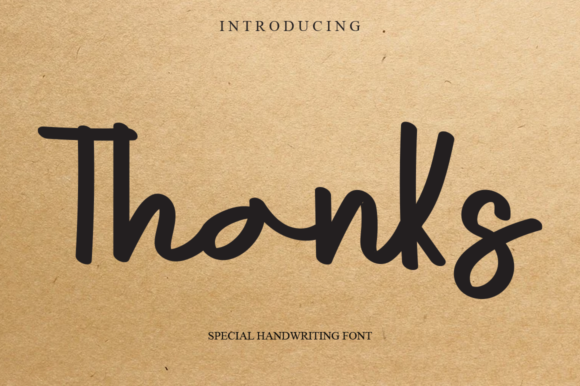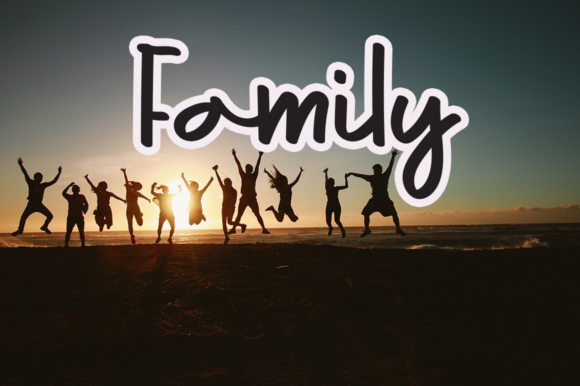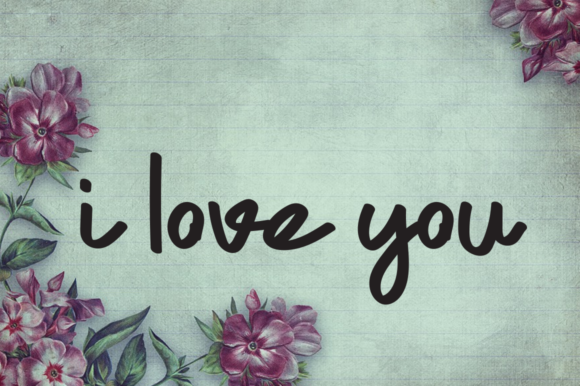
About Thanks Font
Thanks is a delightful handwritten font that captures a dainty and fun vibe. With its nostalgic feel and elegant style, this typeface adds a touch of charm and whimsy to any design project.
The soft and playful curves of Thanks make it an excellent choice for a variety of creative endeavors. Whether you’re designing love books, creating graphics for romantic movies, or working on women’s magazines, this font will bring a sense of warmth and personality to your work.
Thanks evokes a feeling of gratitude and appreciation, making it a perfect fit for projects that celebrate love, joy, and positivity. Its delicate strokes and gentle letterforms create a sense of elegance and sophistication, while still maintaining a playful and inviting atmosphere.
The versatility of Thanks allows it to be used in a wide range of applications. It can be used for titles, headlines, body text, quotes, and more. Whether you’re designing for print or digital media, Thanks will add a touch of personality and style to your layouts.
The nostalgic feel of Thanks adds a touch of sentimentality to your designs. It’s like a heartfelt thank-you note, conveying gratitude and warmth to your audience. With its elegant style and timeless appeal, Thanks is sure to leave a lasting impression.
In summary, Thanks is a dainty and fun handwritten font with a nostalgic feel and an elegant style. It is well-suited for love books, romantic movies, women’s magazines, and other projects that require a touch of charm and whimsy. Let Thanks add a sense of gratitude and warmth to your designs, and watch them come to life with joy and appreciation.